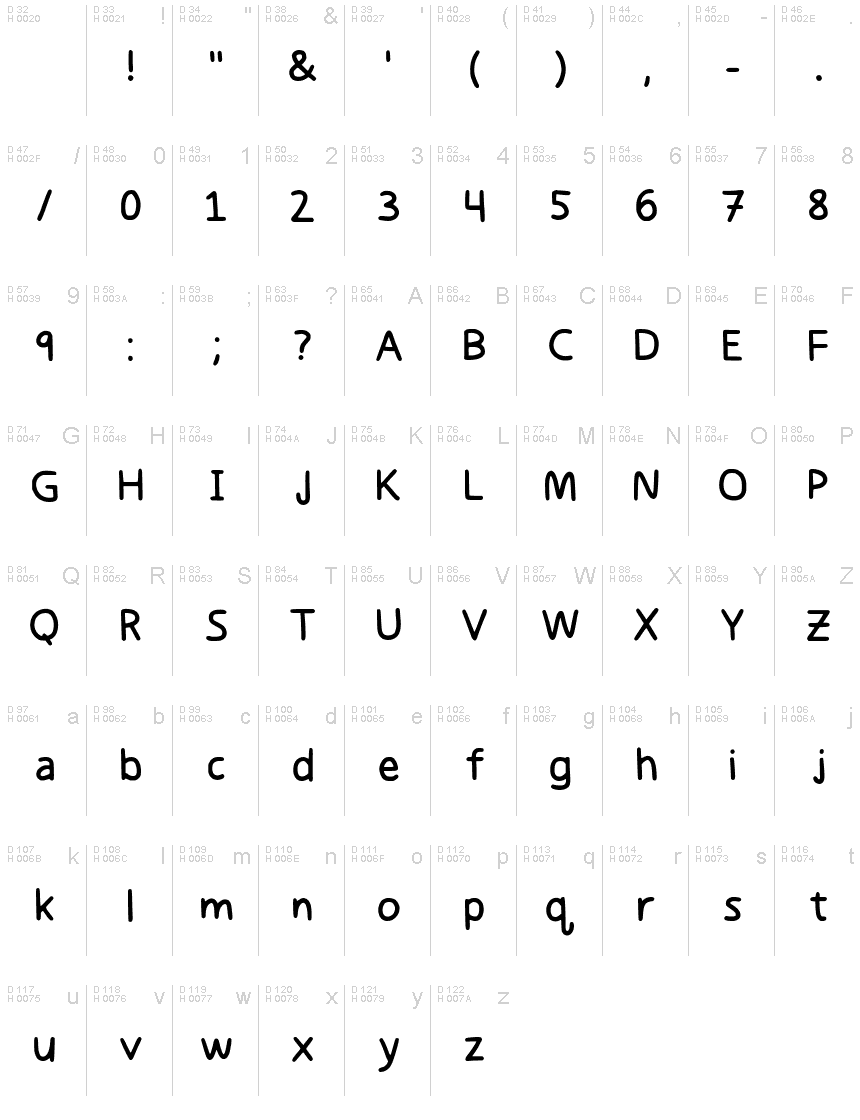
Kaylins Note Font Regular
Kaylins Note Font is the perfect choice for projects that require a casual, handwritten aesthetic. Designed by Kaylin, this semi-light font has a subtle weight that adds depth and character to any text. With its organic and playful style, Kaylins Note Font is ideal for creating greeting cards, invitations, social media graphics, or even handwritten notes. Whether you're looking to add a personal touch to your brand or simply want to convey a relaxed vibe in your designs, this font typeface will bring your words to life in an elegant and effortless way.